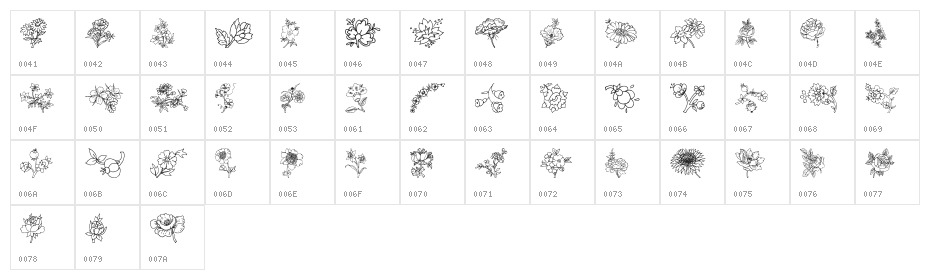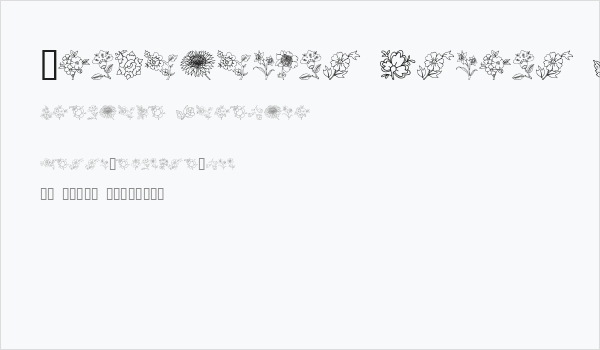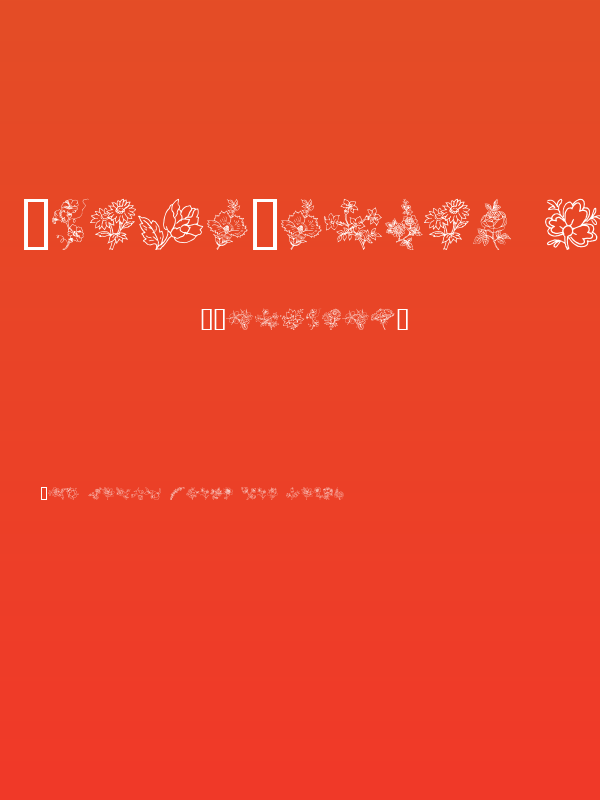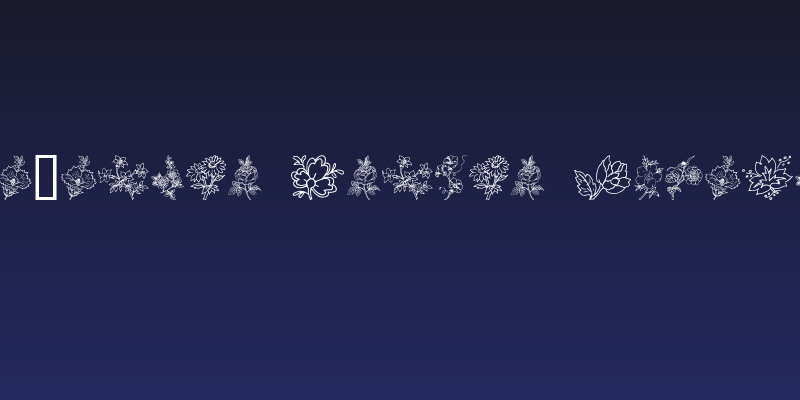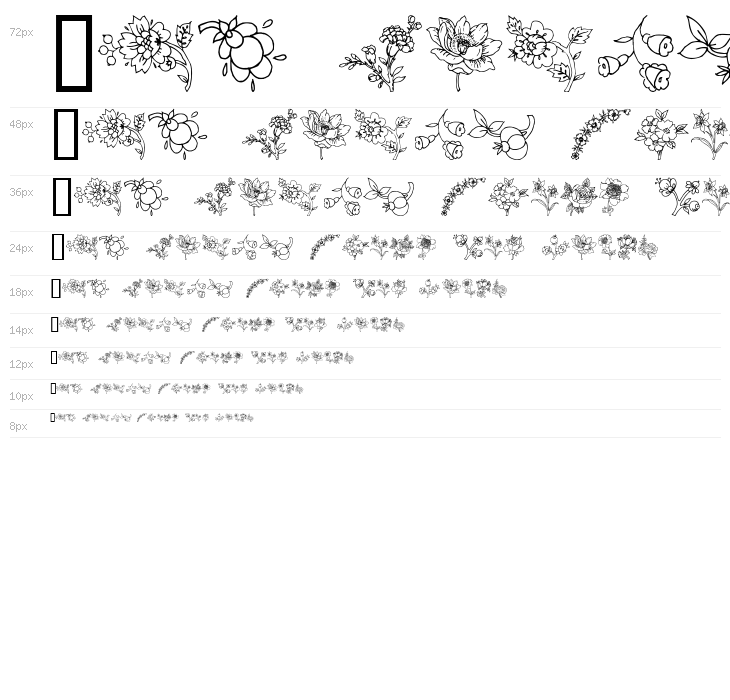
Traditional Floral Design III Font
Traditional Floral Design III Description
A decorative font featuring intricate, hand-drawn traditional floral illustrations as glyphs. Each character is represented by a unique flower or botanical motif, rendered in fine line art with detailed petals and leaves. The style is organic and ornamental, evoking a vintage or classical botanical illustration aesthetic.
| Overall Style | Decorative, Vintage, Botanical |
| Use Case | Logos, Headlines, Decorative elements |
| Proposed Projects | Wedding invitations, greeting cards, decorative headers, branding for florists, packaging design, scrapbooking, event posters. |